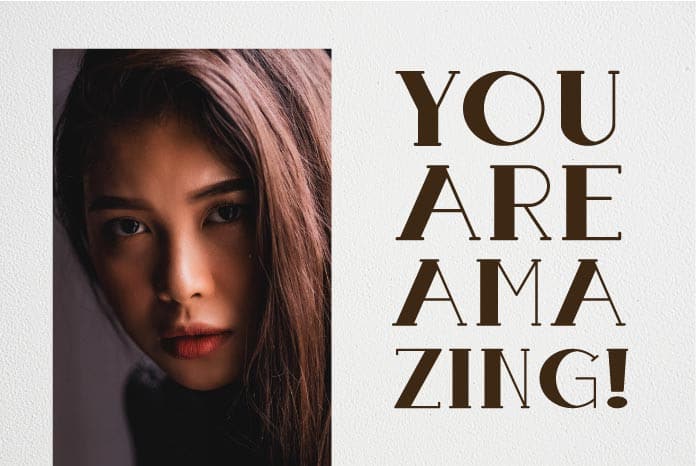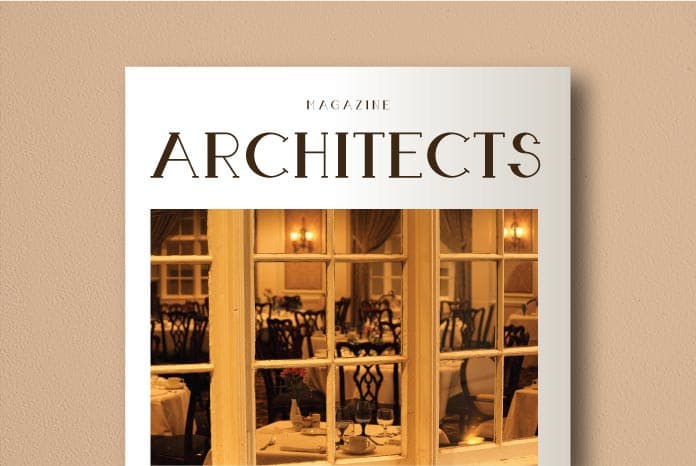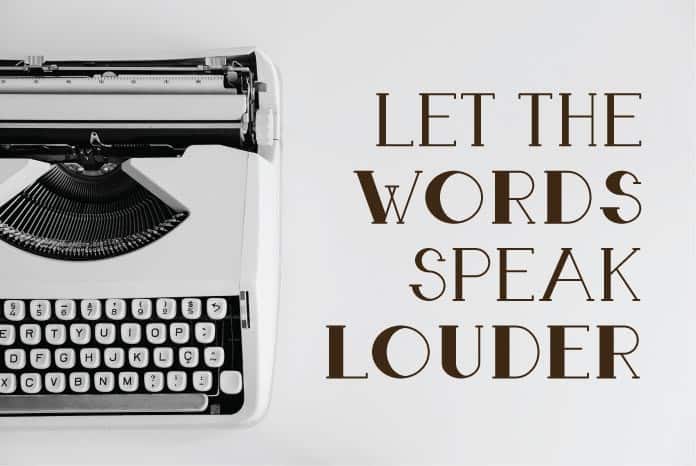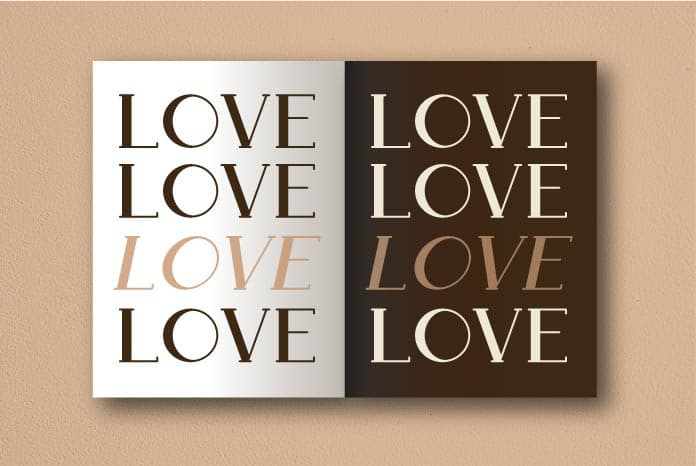
Boldatin Slab Display Font, a slab display typeface with different styles (regular, slanted, condensed slanted) with total of 32 fonts and 6 weight that suit for your project like signage, poster, banner, flyer, etc.